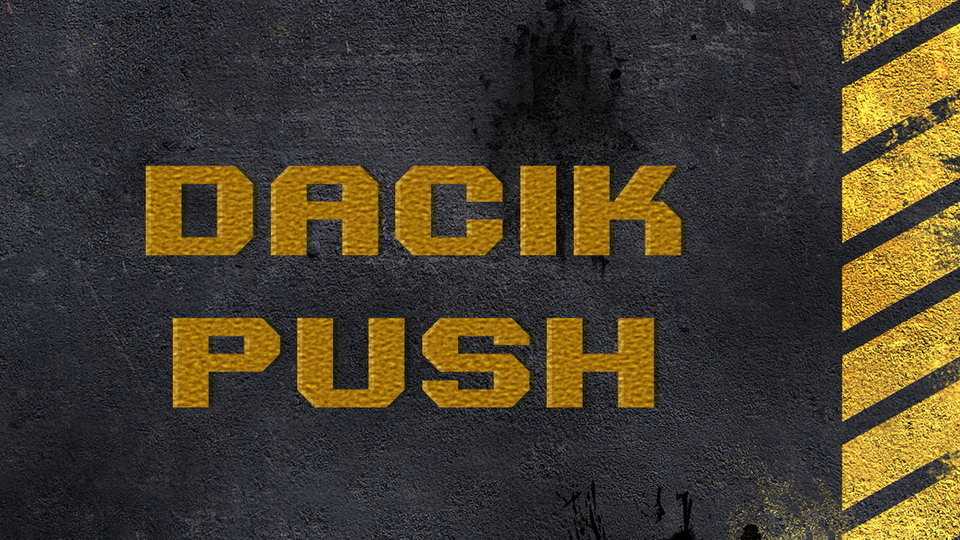
Download Dacik Push font, a display typeface with strong lines and right angles. Stern, formidable, but alluring, Dacik Push is not perfect for any project.
Designer: Maxim Raikov